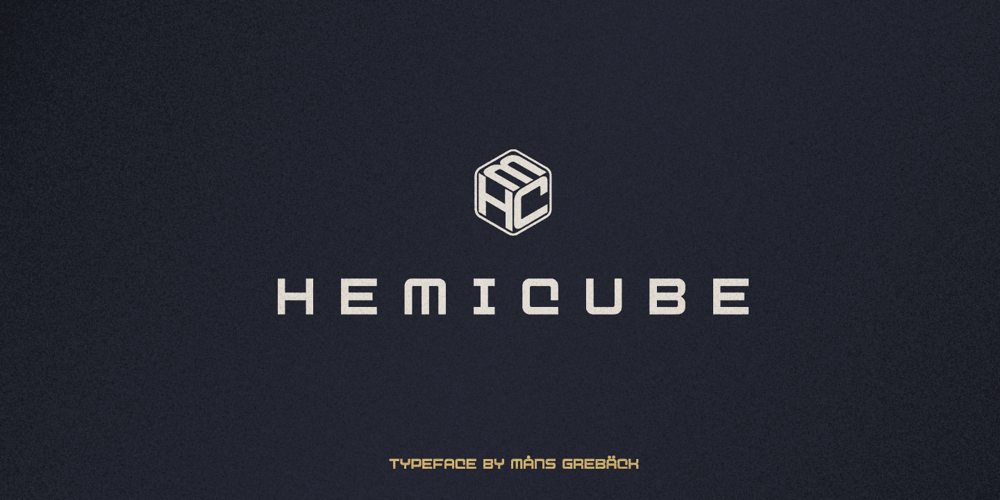
Hemicube Font Family was designed by Måns Grebäck and published by Mans Greback. Hemicube contains 3 styles and family package options. Hemicube is a geometric logotype font, created by Mans Greback in 2020. Its futuristic lettering follows a mathematical pattern while being minimalistic and clean, which makes in work perfectly in sci-fi or technology context graphics. It is a three-style typeface family; in addition to the regular Hemicube style, it also comes as a basic Type style as well as a monogram Logo style. In the Hemicube Logo font, write any three capital letters to make a cube monogram. Example: ABCUse underscore to create a logo with fewer letters. Examples: A_B _CD _E_It has a very extensive lingual support, covering all European Latin scripts.The font contains all characters you’ll ever need, including all punctuation and numbers.